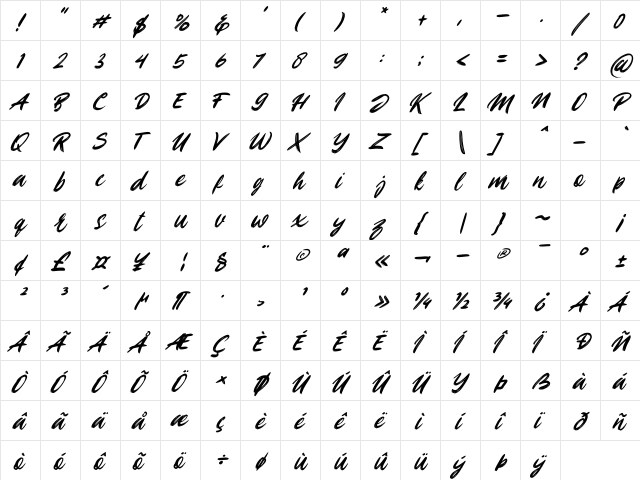
Playbrush Tilted Regular
Design Context for Playbrush Tilted Typeface
Playbrush Tilted flows with the natural rhythm of handwritten lettering, making it ideal for designs that call for warmth and personal expression.
Font Pairing: Combine Playbrush Tilted with a simple geometric sans for maximum contrast — the tension between flowing curves and clean structure is a classic typographic pairing.
Pro Tip: Use Playbrush Tilted for short runs of text — names, titles, or taglines. Extended body copy in script faces tires the eye quickly.